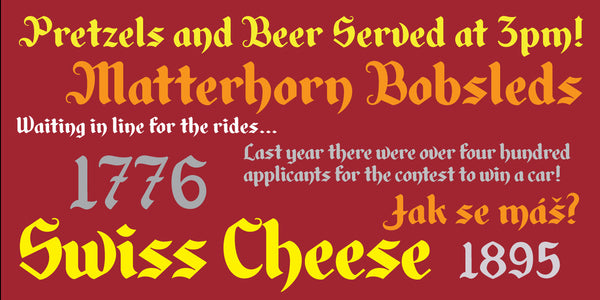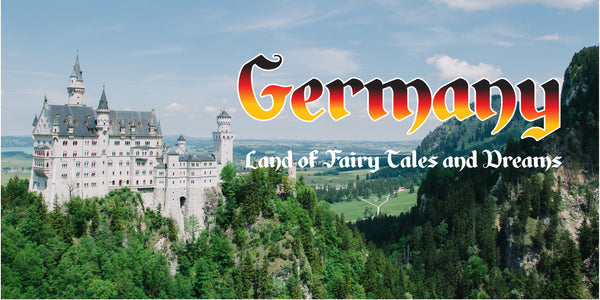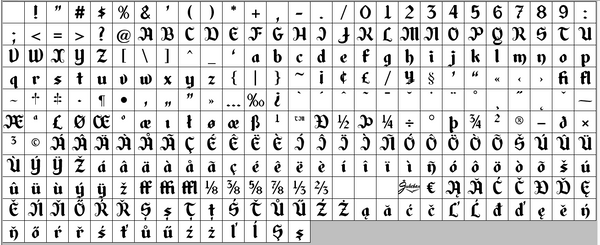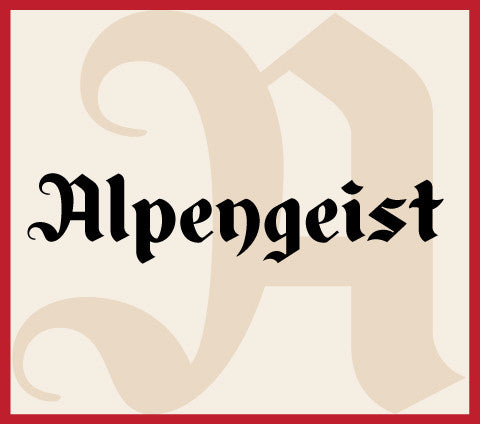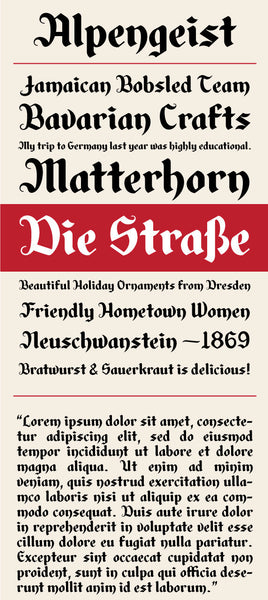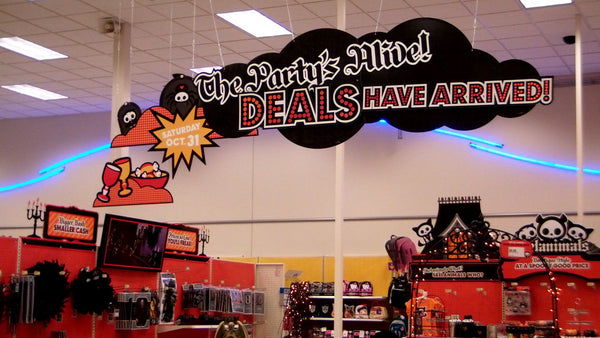
Alpengeist
Alpengeist is a Blackletter style font whose name literally means "Spirit of the Alps" in German. This typeface, based on a hand lettered sign, inspires the biergarten lover in all of us. Packed with European and Germanic flair, this whimsical take on the Blackletter style will add old world charm to your project or design.
Notable Use: Alpengeist was used by Target® Stores for all of the signage and in-store displays for their Halloween 2009 season.